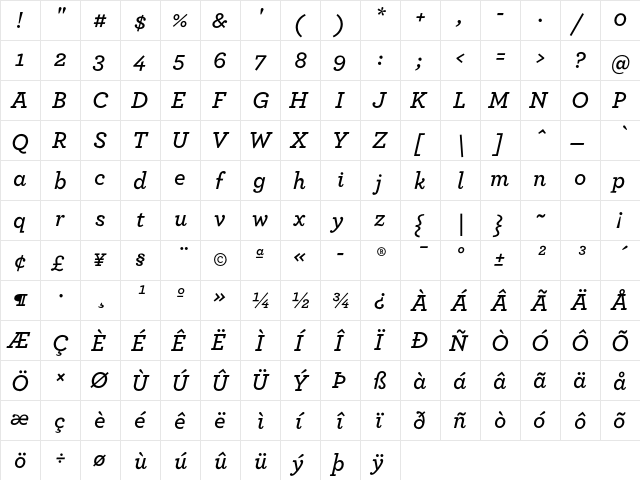
ArcherPro Semibold Italic Font Preview
Design Context for ArcherPro Typeface
ArcherPro takes a measured approach to typography — its balanced proportions and neutral character make it a reliable workhorse for both digital and print work. The dynamic lean of this cut emphasises speed and emphasis in any layout. Its bold stroke weight gives it real presence on the page.
Pro Tip: Try ArcherPro for annotation and caption copy alongside an upright companion — the contrast in angle creates a dynamic but ordered typographic system.